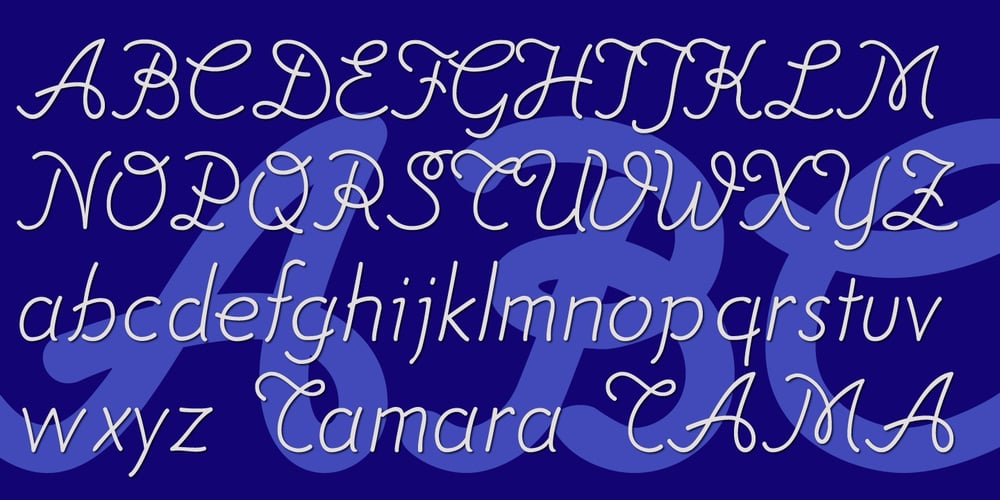
Tamara
Tamara font
Tamara Font Family was designed by Gert Wiescher and published by Wiescher Design. Tamara contains 3 styles and family package options. Tamara is a very open kind-of-art-deco script based on some initials for Semplicita made in the 1930s by the Nebiolo foundry. I designed a complete family with three weights. Since I am an ardent admirer of Tamara de Lempicka the Polish-French painter who was in her prime during the 1930s as well, I thought “Tamara” would be a good name for this script. I sell all three weights for the price of one. Your very generous Gert Wiescher.